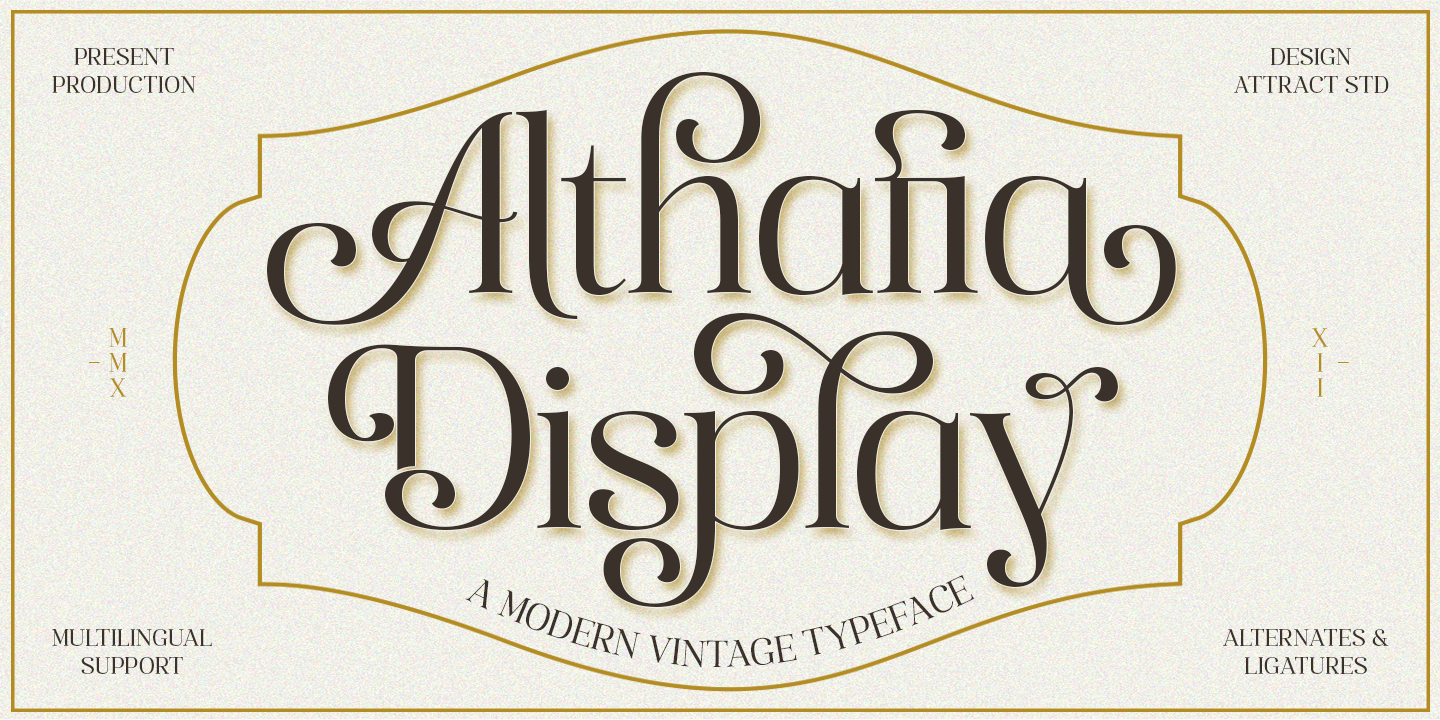
Althafia Display Font Free Download – Eye-Catching Typography for Bold Statements
Looking for a font that demands attention and makes your designs pop? Althafia Display Font Free Download is the perfect choice for headlines, posters, logos, and any project where you want to leave a strong impression. Its bold, decorative style combines vintage charm with modern flair, making it versatile for a variety of creative uses.
Althafia Display features intricate details and elegant curves that add personality and sophistication to your text. Whether you’re designing branding materials, event invitations, or social media graphics, this font brings energy and uniqueness that captivates your audience.
Make your designs unforgettable with Althafia Display — a font that combines artistry and impact in every letter.